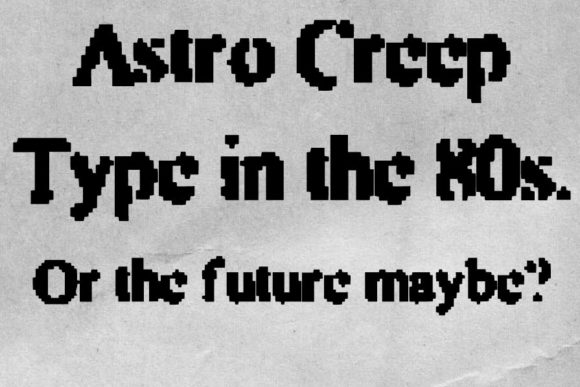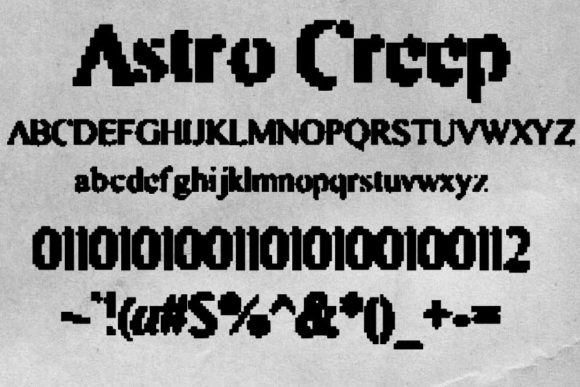
The Cosmic Twist Your Design Needs
You know that moment when you’re working on a project and you’re stuck, searching for the perfect font to bring your vision to life? The hours tick by, and your screen is filled with endless options, but nothing seems quite right. That’s when you stumble upon it – a font that transports you to a futuristic world of broken technology and retro-futurism.
This is where the Astro Creep Font comes in, a display font that adds a touch of cosmic magic to your designs. With its techno-inspired style, it’s perfect for creating a sense of nostalgia and otherworldliness in your projects. Whether you’re designing a sci-fi game, a futuristic interface, or simply a retro-inspired poster, Astro Creep Font is the perfect addition to bring your vision to life.
By incorporating the Astro Creep Font into your design, you’ll not only add a unique touch but also create a sense of depth and character that will set your projects apart from the rest. So why settle for a generic font when you can add a little bit of cosmic flair to your designs?
Astro Creep 2000 Font Key Features
- Font Family: Astro Creep 2000
- Unique Characteristics: Astro Creep 2000 features a futuristic and distressed aesthetic, with a blend of sci-fi and horror elements
Astro Creep Font Review
Overall, I’m really impressed with the Astro Creep Font. ✨ It’s a unique and quirky font that’s perfect for adding some cosmic flair to your designs. The font has a fun, playful feel that’s sure to grab attention.
- ✨ Uniqueness: The Astro Creep Font is unlike any other font I’ve come across. Its quirky design makes it perfect for brands that want to stand out.
- ✨ Versatility: The font comes in a range of weights and styles, making it suitable for a variety of design applications.
- ✨ Customization options: The font is highly customizable, allowing designers to adjust the spacing, size, and color to suit their needs.
- ⚠️ Readability: While the font is unique and fun, it can be a bit difficult to read at smaller sizes. This may be a concern for designers who need to use the font for body text.
- ⚠️ Limited language support: The font may not support all languages, which could be a limitation for designers working on international projects.
In conclusion, the Astro Creep Font is a great addition to any designer’s toolkit. While it may have some limitations, its unique design and versatility make it a great choice for adding some cosmic flair to your designs.
Tips for Getting the Most Out of Astro Creep Font
1. Use Astro Creep font for titles and headings to add a touch of whimsy and creativity to your design.
2. Experiment with different font sizes and colors to create a unique visual effect.
3. Pair Astro Creep font with other fonts to create a visually appealing contrast.
1. Music festival or concert posters.
2. Sci-fi or fantasy book covers.
3. Retro-themed advertisements or promotions.
Q: Are there any specific font pairing recommendations for Astro Creep Font?
While Astro Creep Font can be used as a standalone font, pairing it with complementary fonts can enhance its visual appeal. Some recommended pairing fonts include clean sans-serif fonts like Open Sans or Lato, or distressed fonts like Grunge or Stencil. Experiment with different combinations to find the perfect pairing for your project.